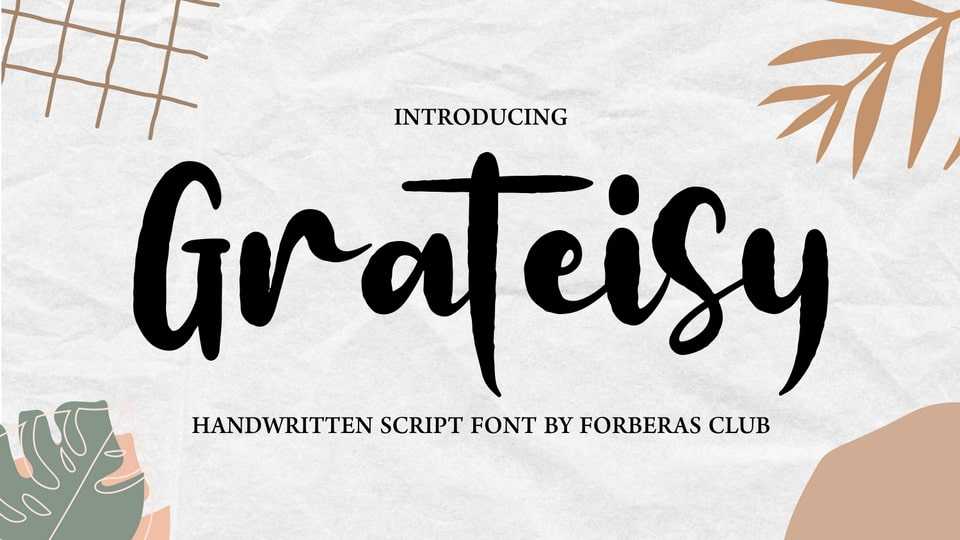
Download Grateisey font, a brush lettered stylish script typeface. It will elevate a wide range of crafting ideas, from cards, to branding, labels and much more.